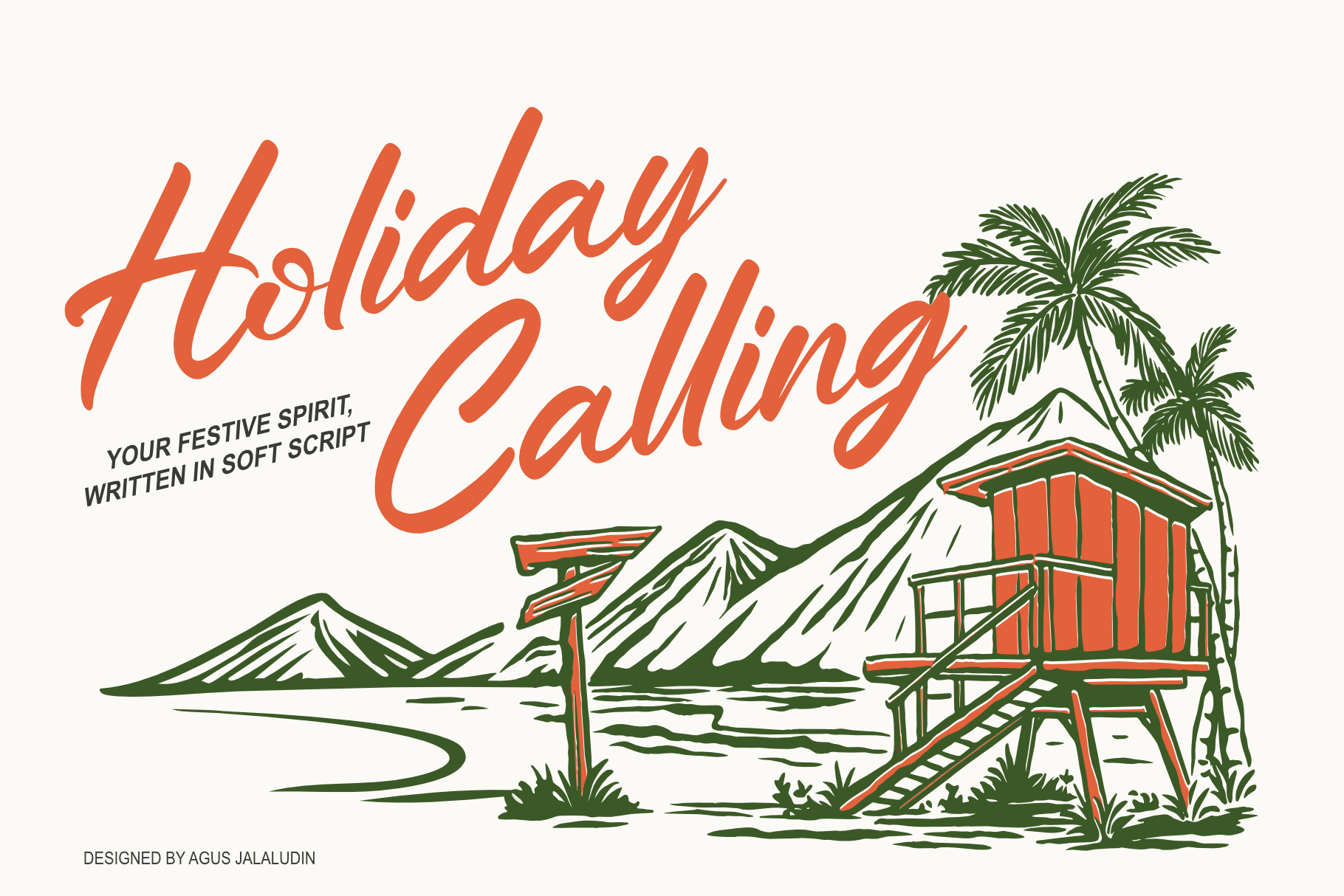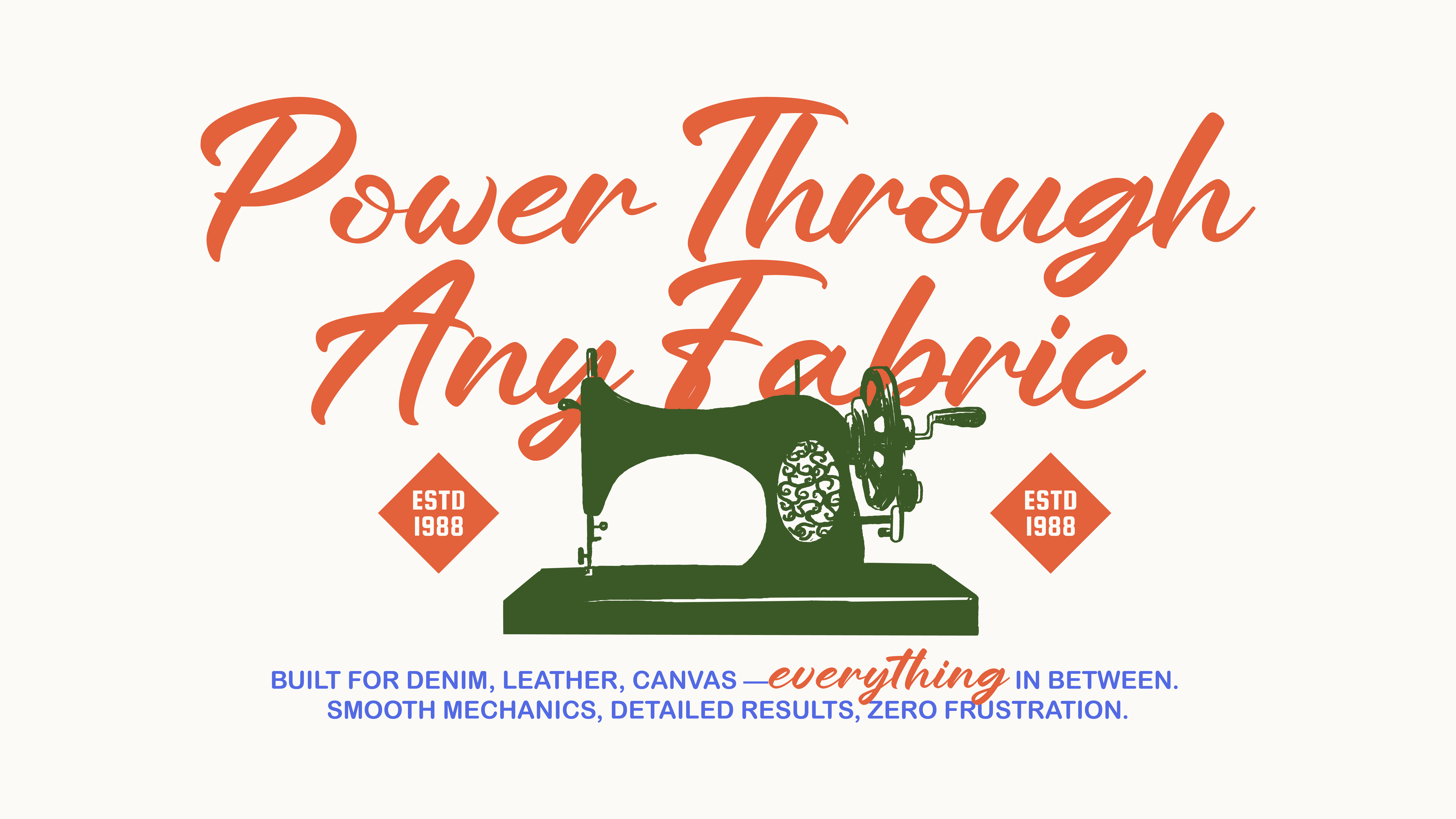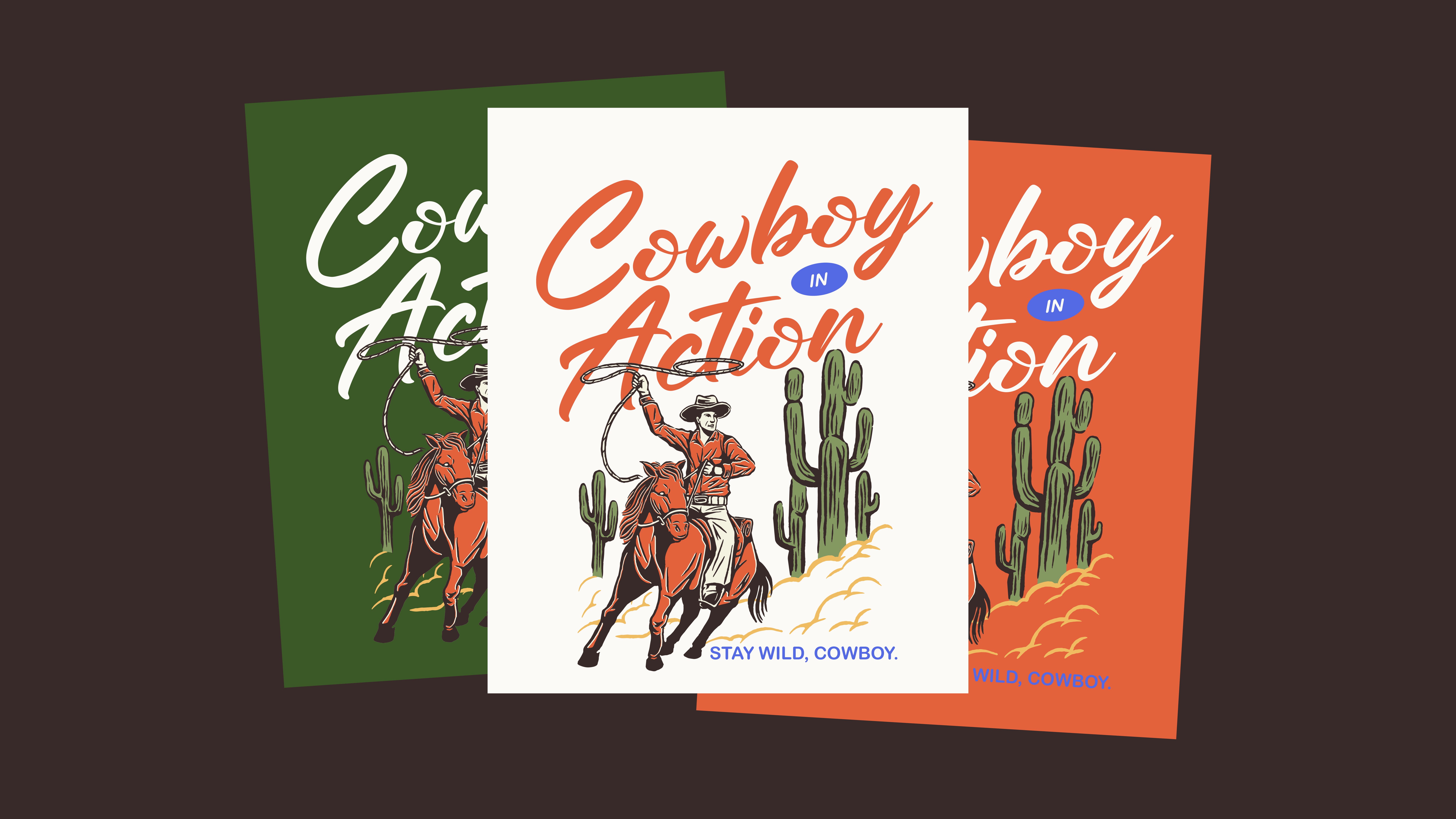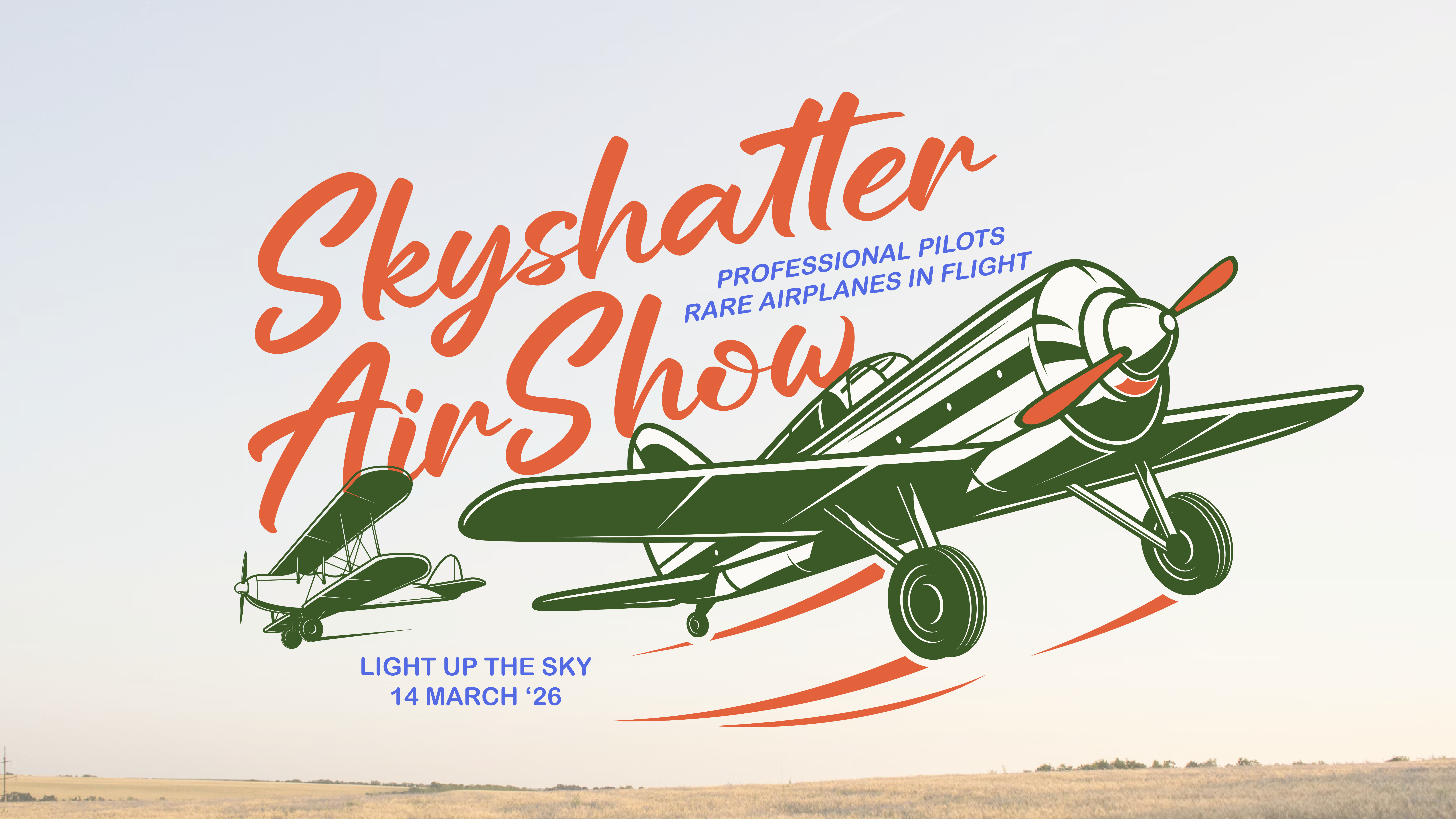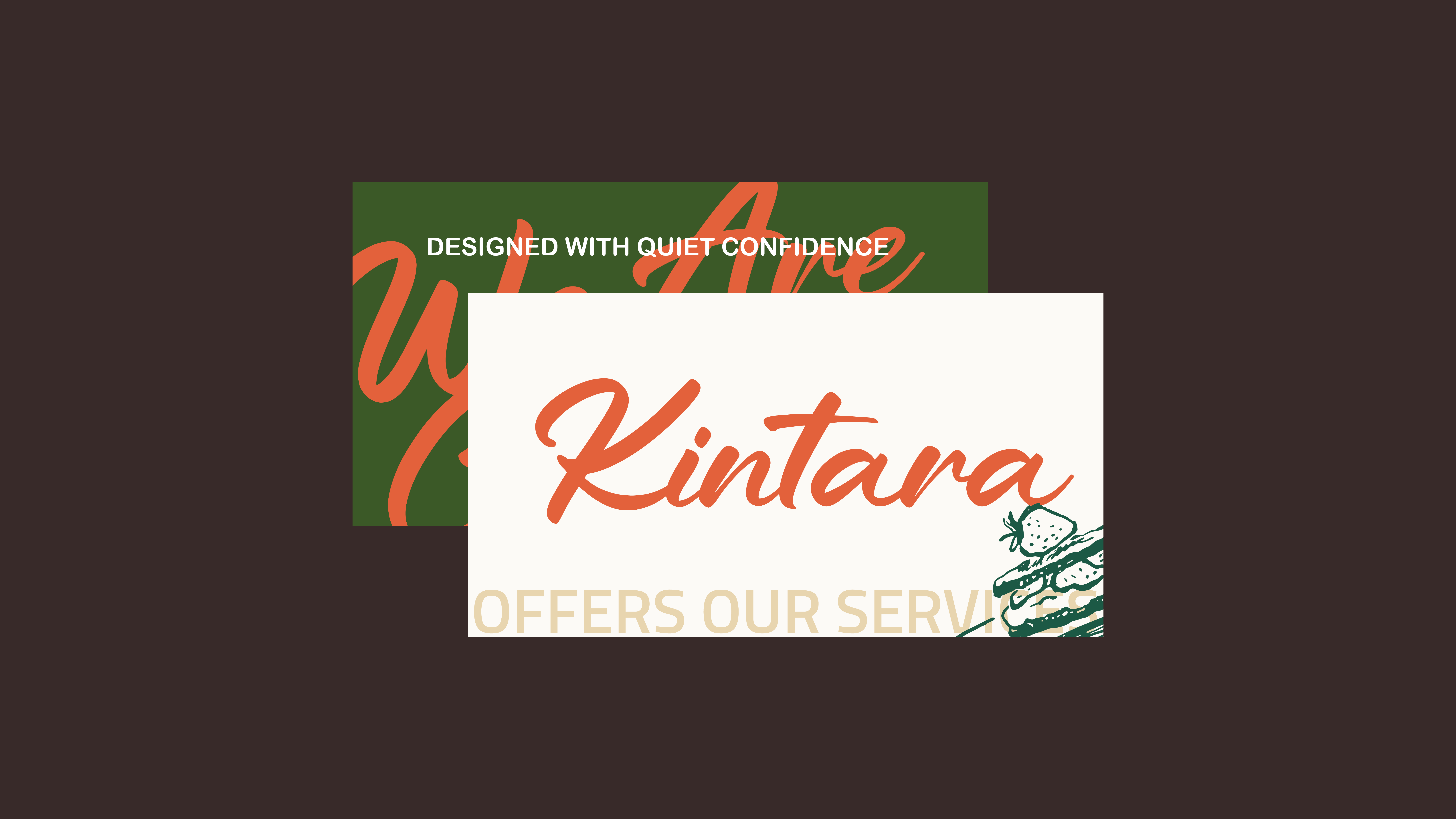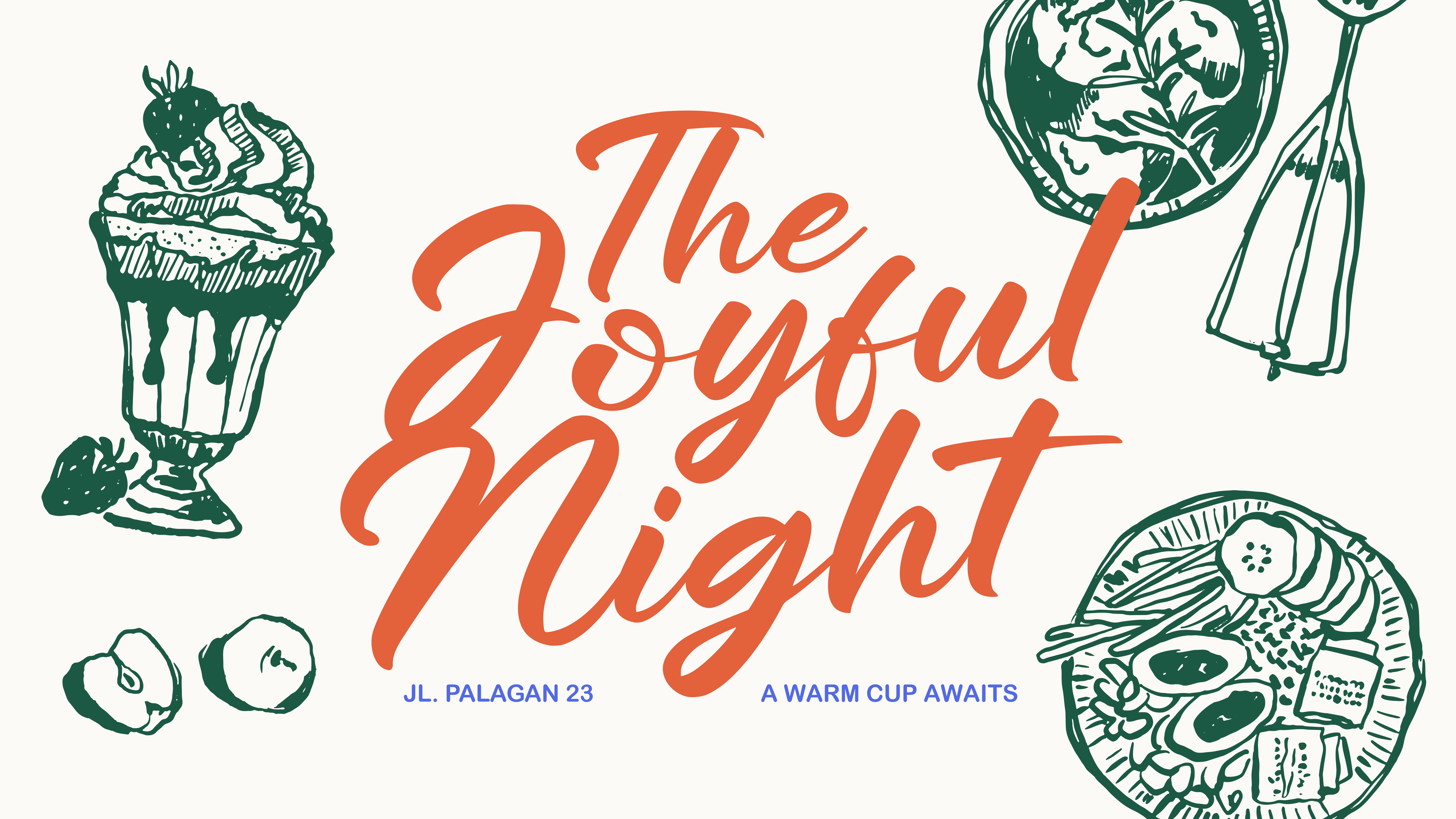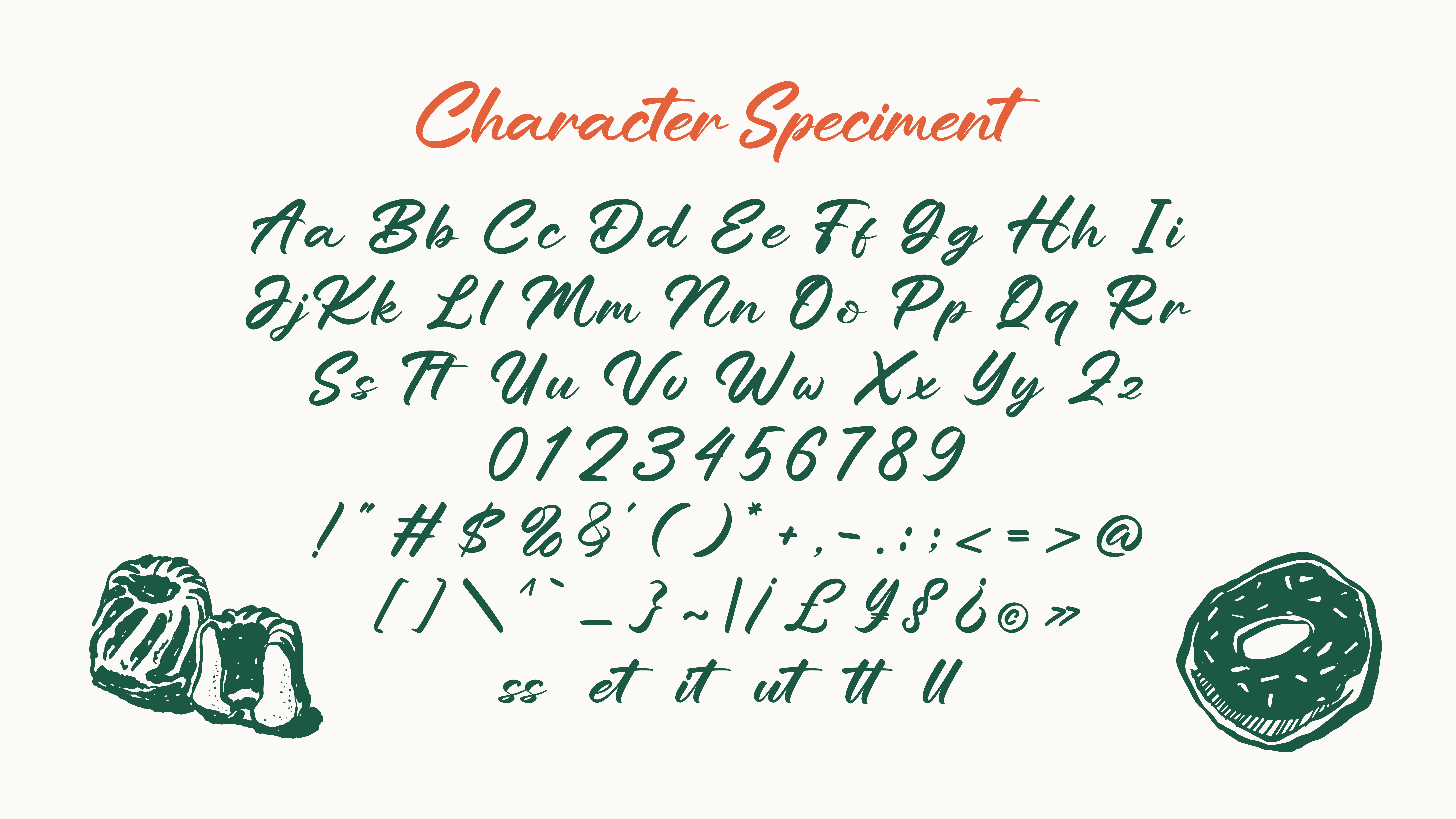
Holliday Calling
Holiday Calling Font, a vibrant, energetic soft script typeface that immediately transports your audience to a sunny, vintage vacation destination. This brush-style script is characterized by its chunky, quick-stroke forms and intentionally imperfect baseline, lending it an authentic, hand-painted feel reminiscent of mid-century resort posters and retro travel advertisements. The Holiday Calling font is a powerful display typeface, commanding attention with its bold weight and distinctive, expressive letterforms.Font identification service
It’s perfect for travel-themed merchandise, vintage-style packaging, rugged outdoor branding, or any project that needs a playful yet robust statement.
Described as a “soft script,” this Holiday Calling typeface manages to be both friendly and dynamic, offering a perfect blend of high-energy movement and smooth readability. Its unique ability to evoke a specific, carefree era makes this holiday script font a standout tool for retro design enthusiasts.
Perfect for greeting cards, gift tags, restaurant menu titles, tourism logos or branding, and any holiday-themed project, Holiday Calling brings a heartfelt and inviting atmosphere to every design.
Holliday Calling